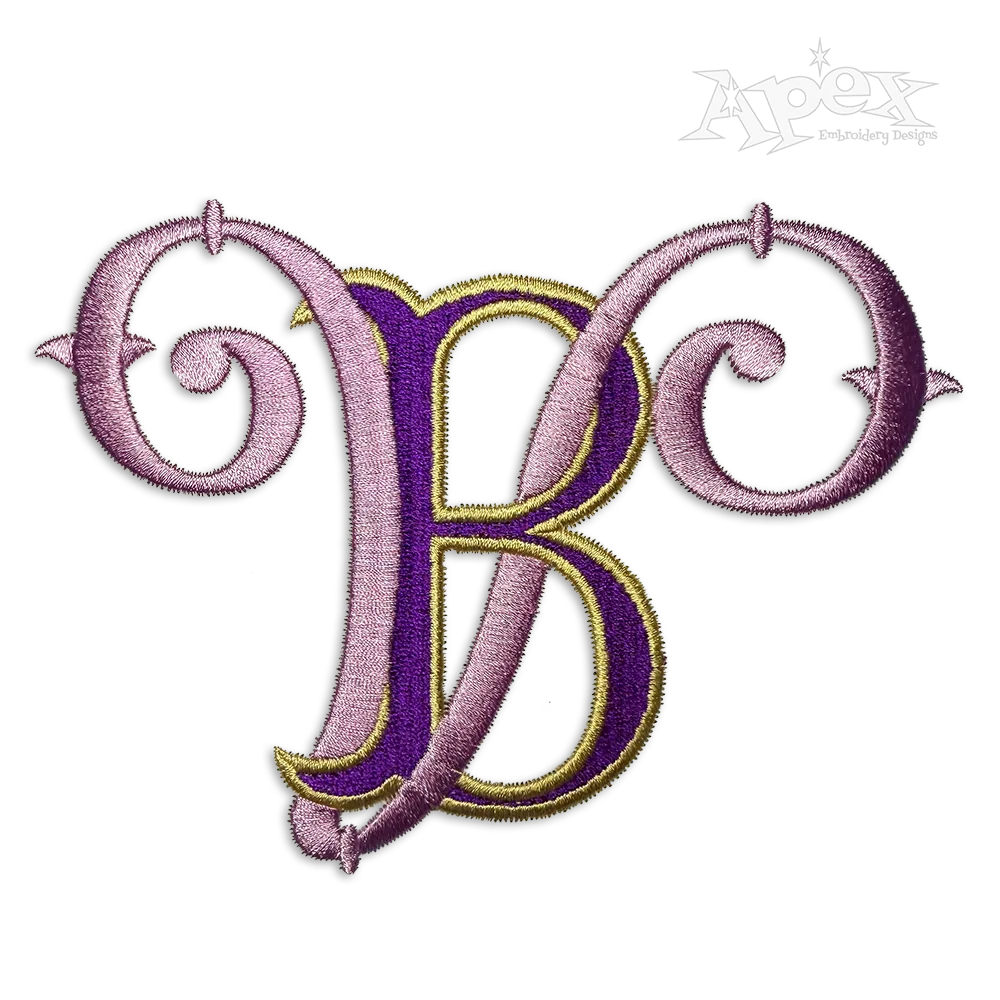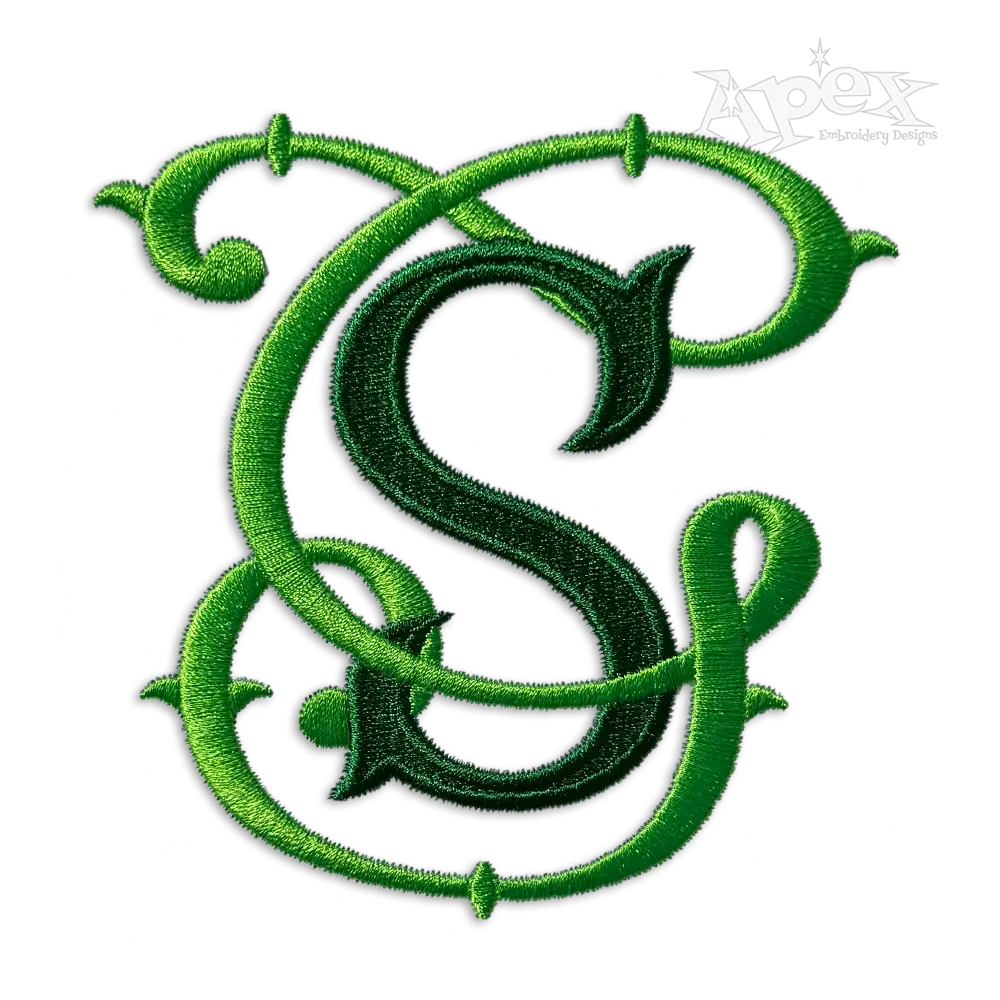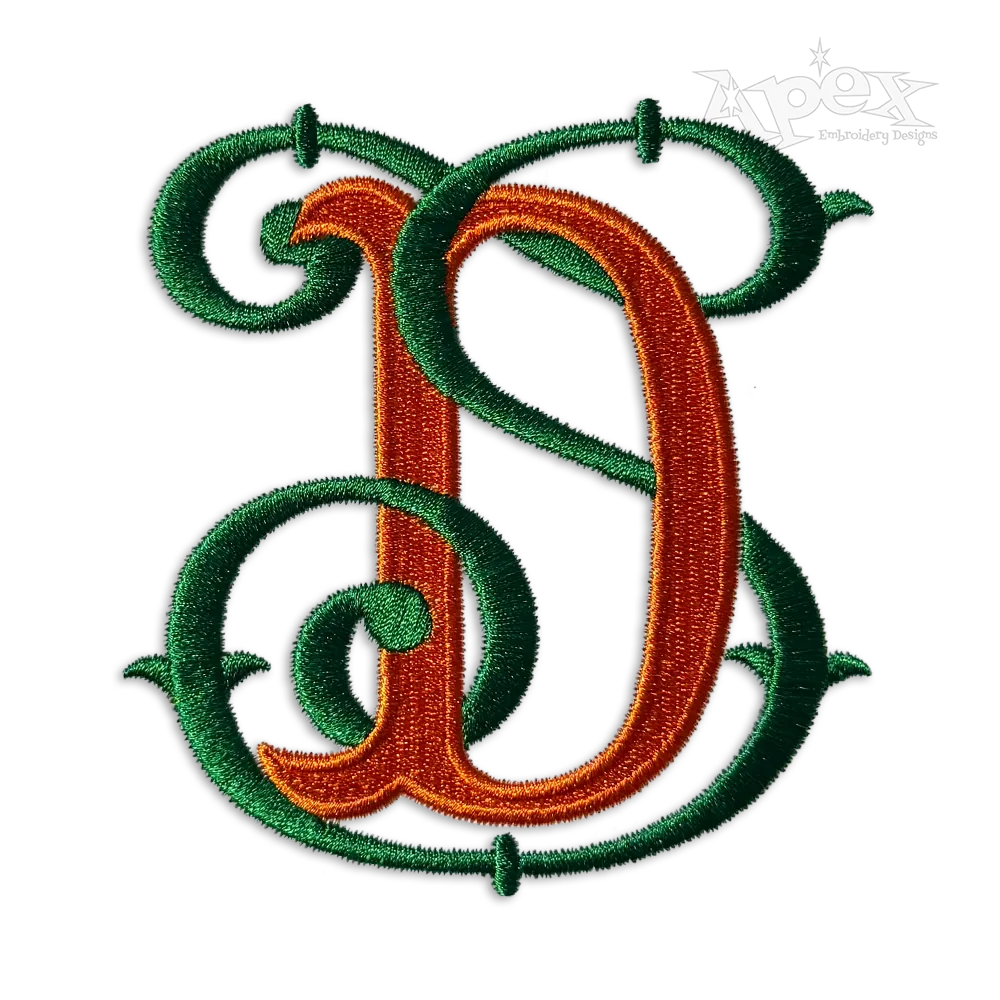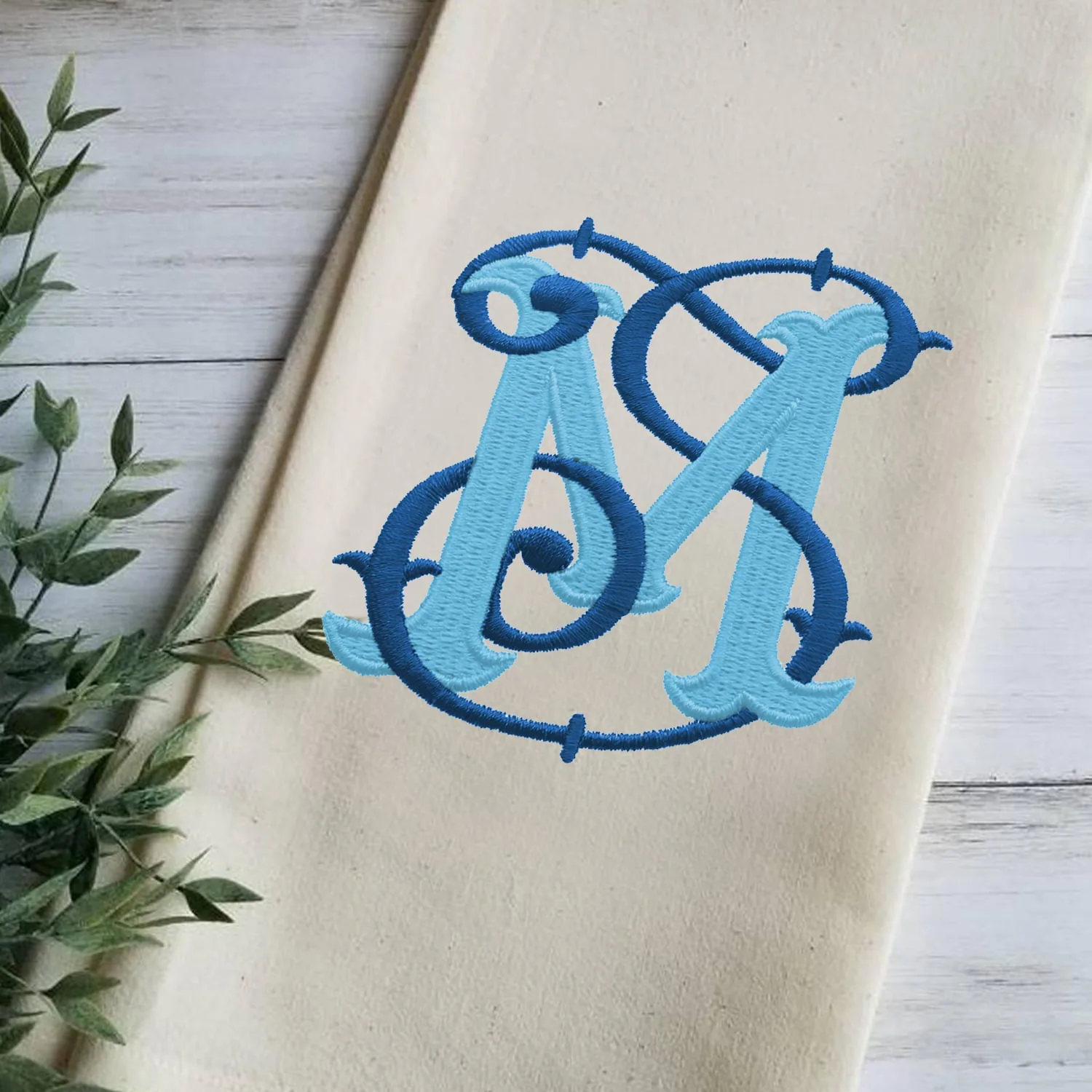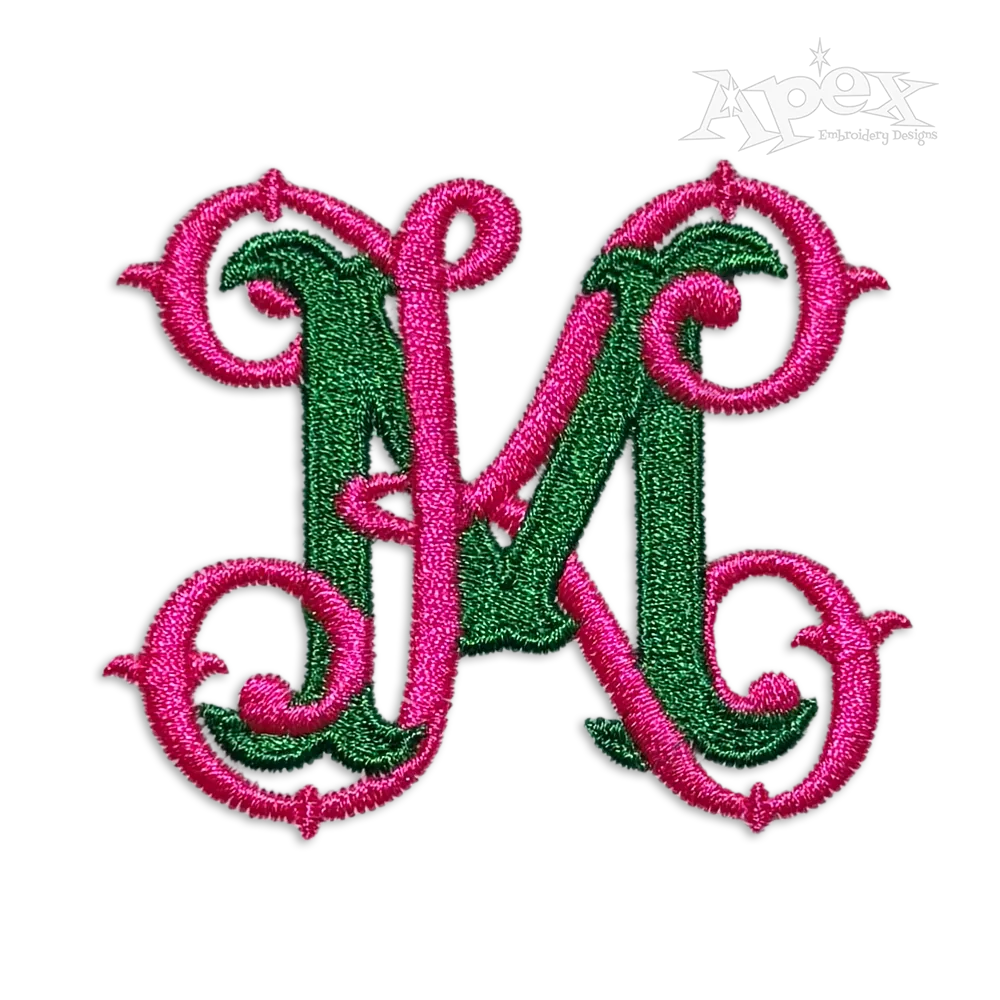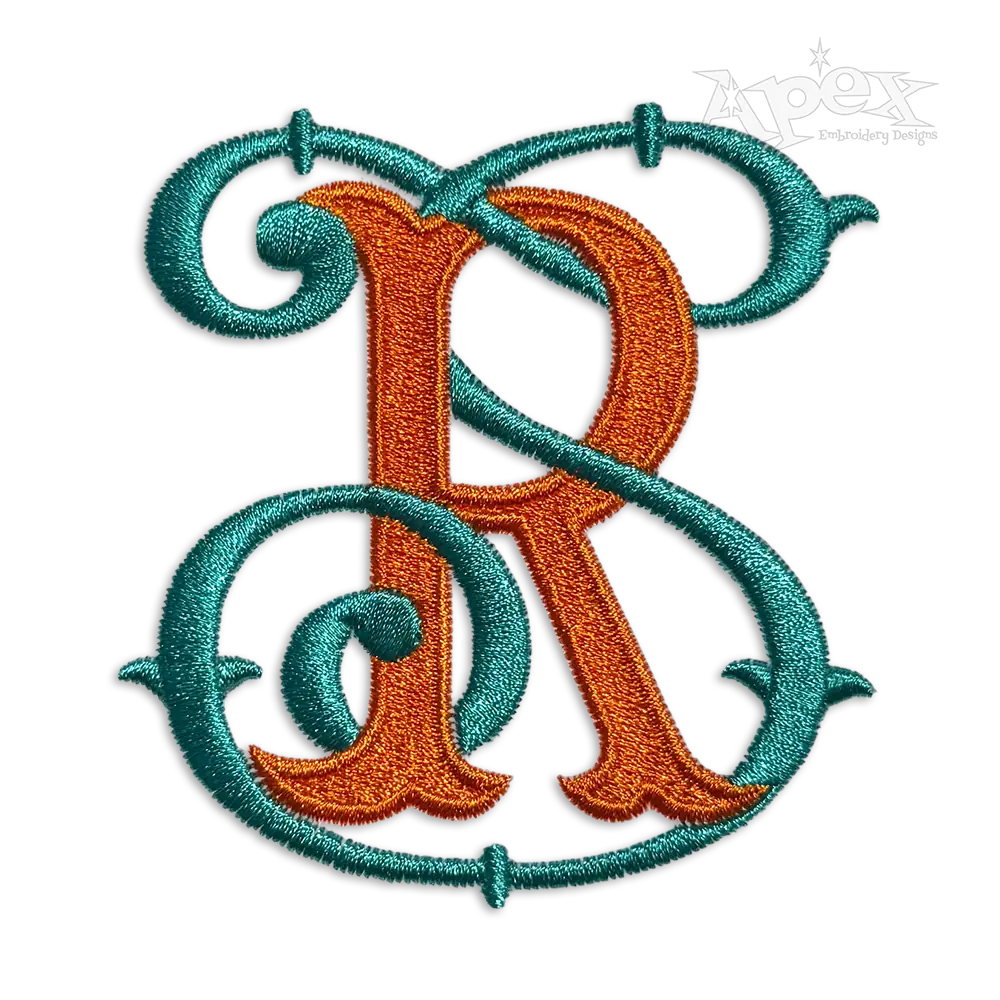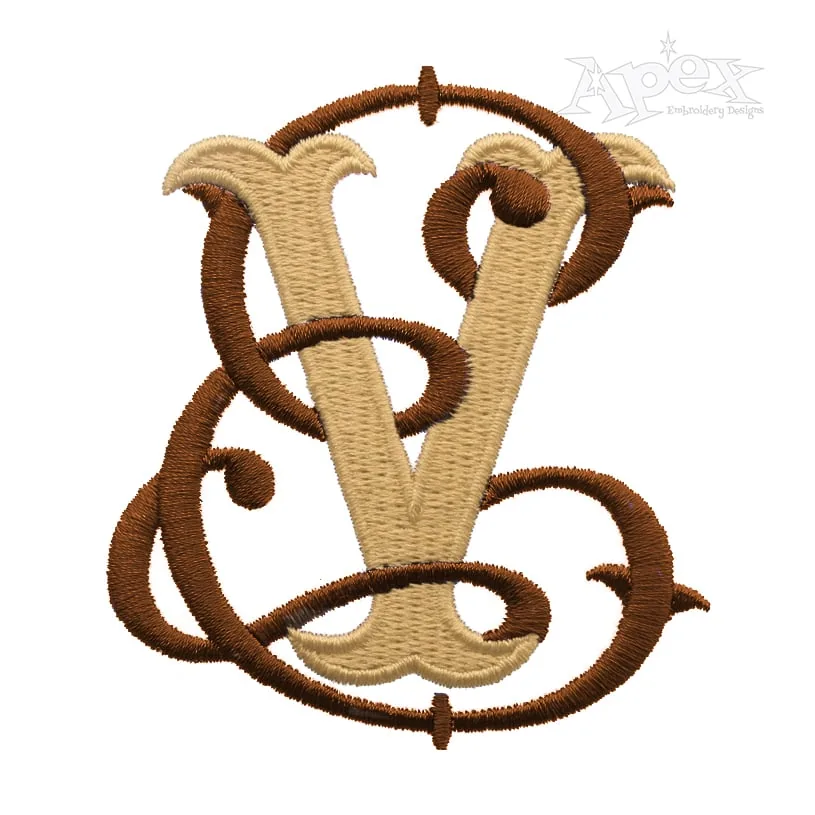
Vine Fishtail Interlocking Monogram Embroidery Font
Intertwined botanical flourishes meet architectural serif geometry in this heirloom embroidery collection. Digitized letterforms weave slender vine tendrils through bold fishtail foundations, creating a harmonious balance between organic motion and classical monogram tradition. Every single stitch path reflects meticulous manual plotting, casting a luminous sheen across thread contours to transform personalized gifting and custom monogramming into timeless textile art.
Vine Fishtail Interlocking Monogram Craft & Letterform Details
Creation began with vintage French heraldic motifs and Victorian typographic specimen sheets. Standard digital typefaces often overlap clumsily, flattening depth and bunching thread. Here, each dual-letter pairing underwent painstaking manual underlay engineering. Graceful vines wrap over and dive beneath structural fishtail serifs, maintaining tactile relief, crisp contouring, and flawless registration without unnecessary density.
Smaller scales utilize smooth satin stitch alphabet execution alongside structured fill columns, preserving legibility on delicate textures. Scaled larger editions transition into split stitch contouring paired with applique framework, granting makers dimensional freedom while preventing fabric distortion.